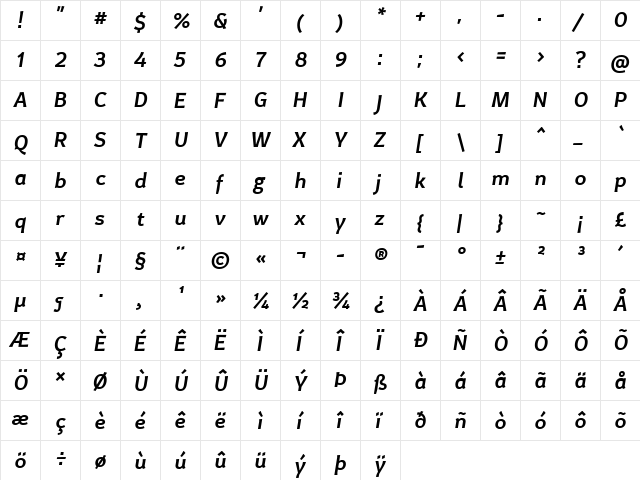
Certa Sans Medium Italic
Design Context for Certa Sans Typeface
Certa Sans is a composed and adaptable typeface that performs quietly and consistently across a wide range of design contexts. The dynamic lean of this cut emphasises speed and emphasis in any layout.
Pro Tip: Use Certa Sans for emphasis, pull quotes, and subheadings where its slanted energy can add rhythm to the layout.